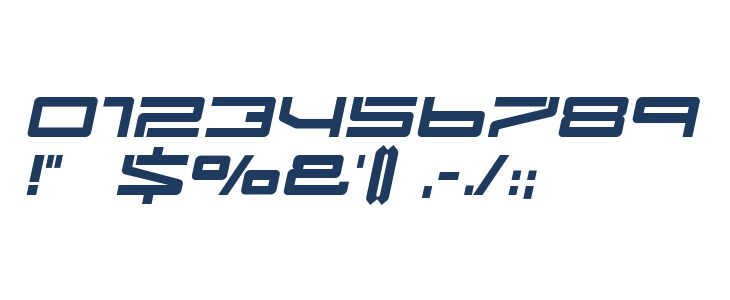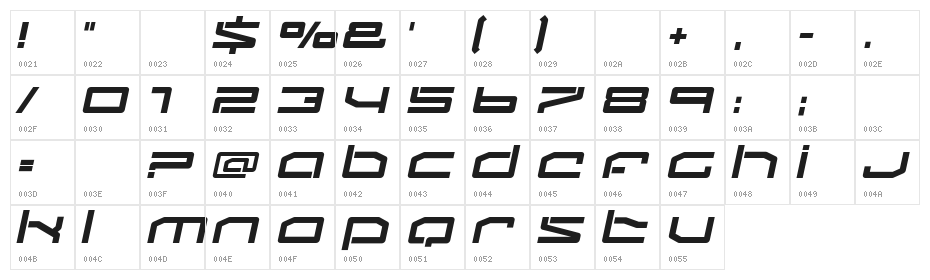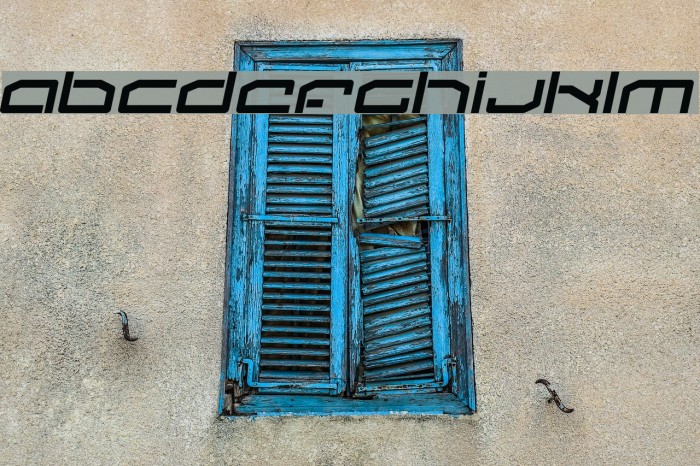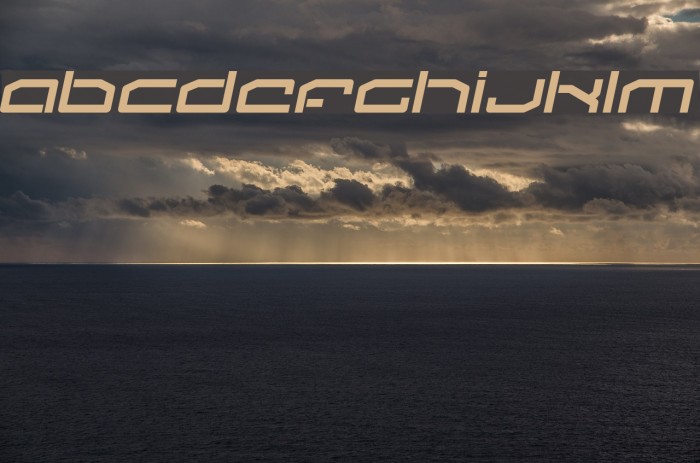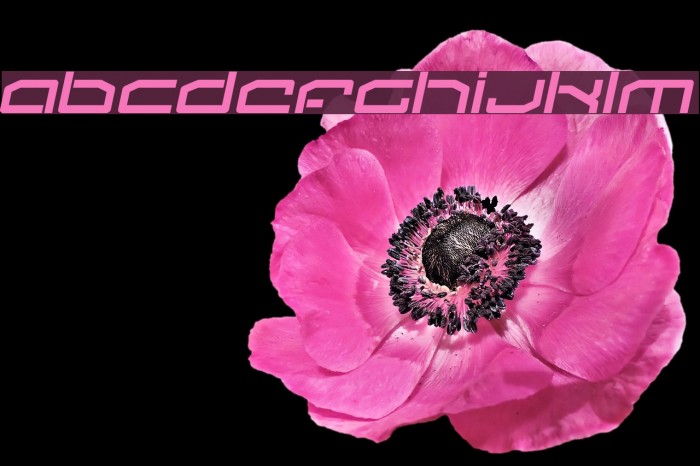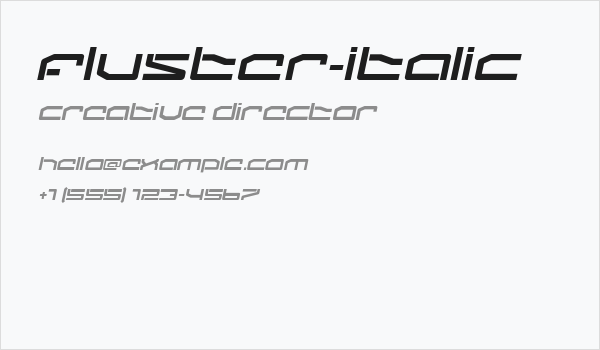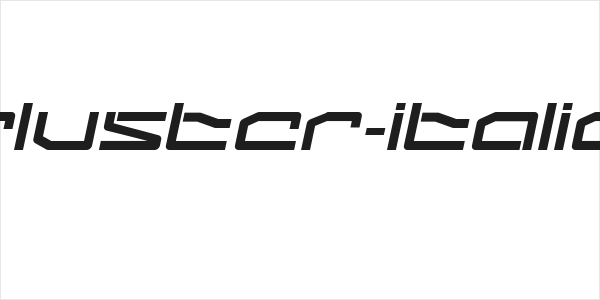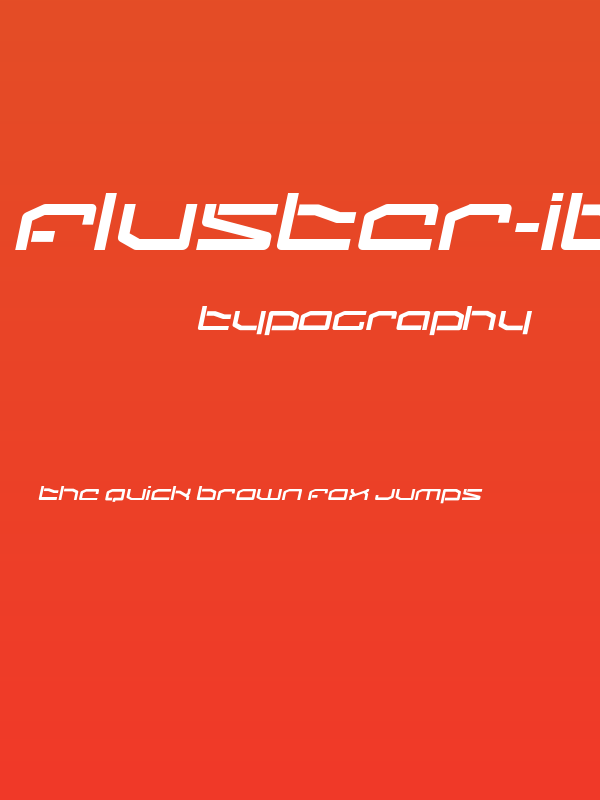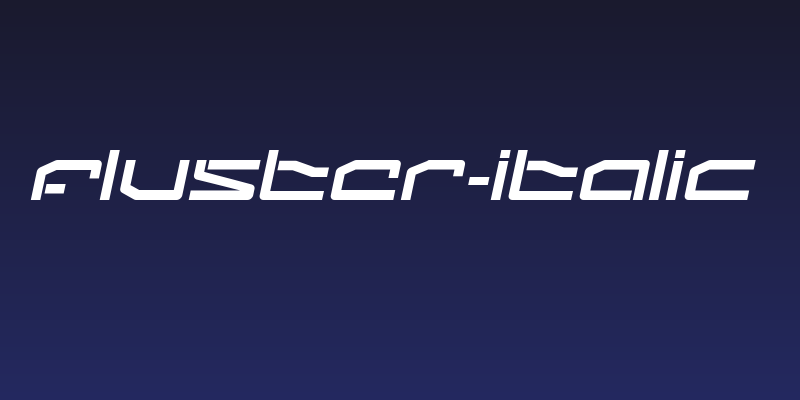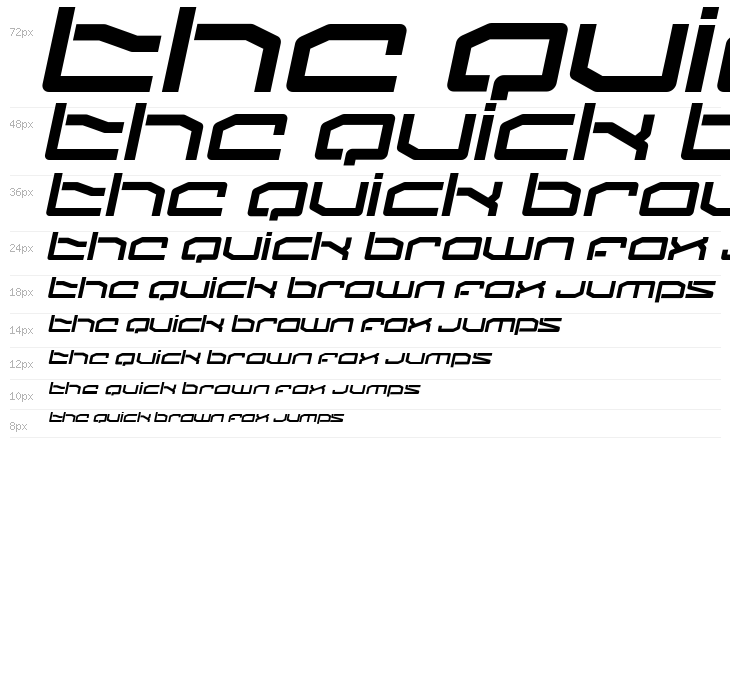
Fluster-Italic Font
Fluster-Italic Description
This font features a futuristic and angular design, characterized by its sharp edges and geometric shapes. The letters are italicized, giving a sense of motion and speed. The uppercase and lowercase letters maintain a consistent style, with a slight slant that enhances the dynamic appearance. The numerals are equally stylized, fitting seamlessly with the overall aesthetic. Special characters are bold and distinct, complementing the font's modern and edgy look. The font's unique style makes it suitable for projects that require a contemporary and tech-savvy feel.
| Proposed Projects | Ideal for tech branding, sci-fi posters, video game titles, and modern advertisements. |